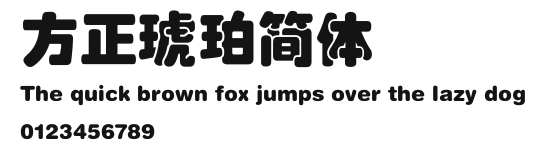
• Font Name: 方正琥珀简体
• Font ID: Founder:方正琥珀简体 Regular
• Full Font Name: 方正琥珀简体
About 方正琥珀简体.ttf
方正琥珀简体.ttf is a modern, elegant sans-serif font designed for ultimate readability and visual harmony. Perfect for branding, headlines, web design, and print materials.